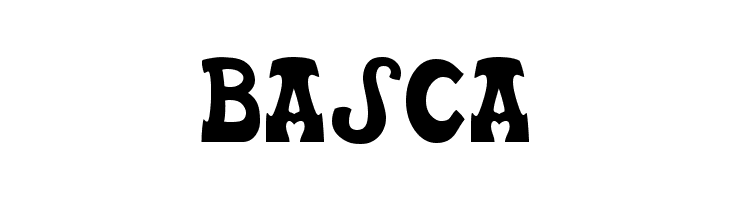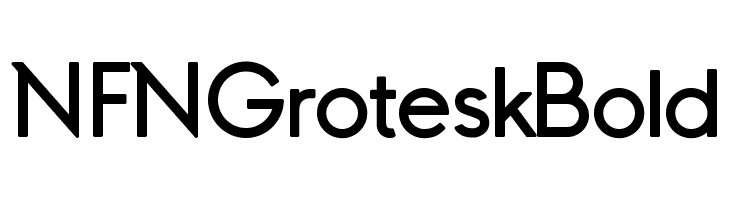
A bold, geometric font ideal for modern headlines and logos.
A playful, curly handwritten font with a whimsical and energetic style.
Playful, decorative script font with a handwritten style.
A bold, jagged 3D italic font with a dramatic, dripping effect.
A modern, geometric sans-serif font with tall, narrow characters.
A bold, decorative font with sharp, angular edges and a three-dimensional effect.
A playful, hand-drawn style font with bold, rounded strokes.
A casual, handwritten-style font with a playful and informal appearance.
A bold, spooky font with jagged edges and a playful monster theme.
A bold, playful font with a splashy, textured design.
A bold, angular font with a unique zigzag pattern for dynamic visual impact.
A modern, elongated font with geometric precision and high symmetry.
A bold, playful font with thick, rounded characters and a whimsical style.
An ornate, vine-like decorative font with intricate, swirling designs.
An elegant, italic serif font with a Renaissance-inspired style.
A classic blackletter font with intricate, angular designs and a medieval aesthetic.
A playful, bold handwritten font with a lively and dynamic style.
A dynamic, slanted handwritten font with smooth, flowing lines.
A bold, playful serif font with exaggerated serifs and a strong presence.
A bold, playful font with rounded edges and a modern vibe.
A bold, futuristic font with sharp, angular edges and a dynamic stance.